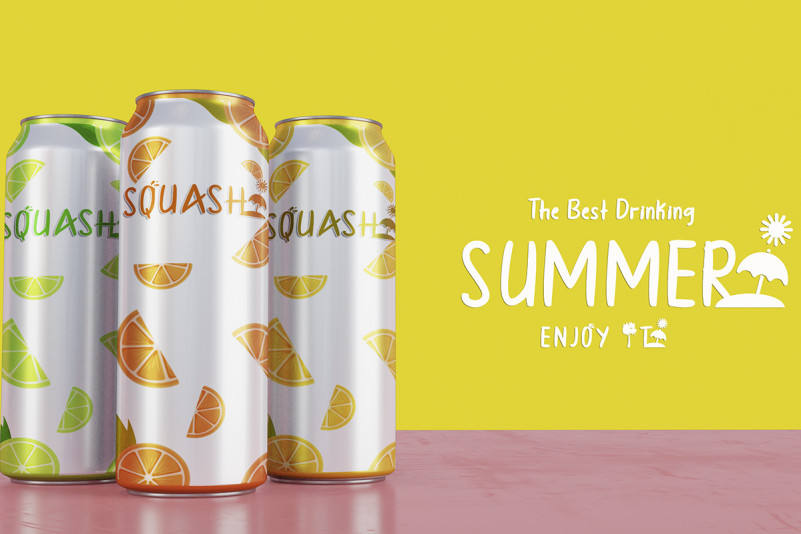
Hello Miami Font
Hello Miami Display Font
This is a cool, relaxed and sunny display font. Add to each of your party invitation, swimming gathering or pretty much any design that requires a touch of youth and joy.